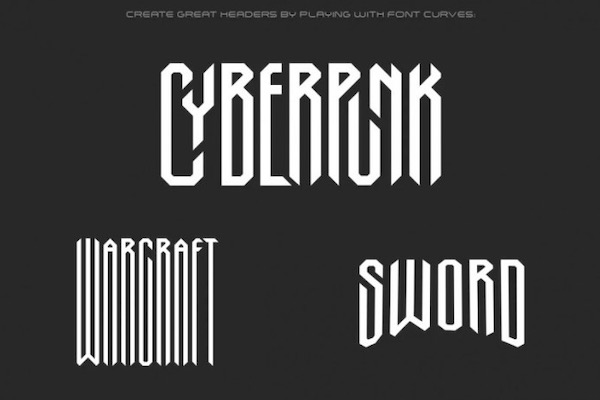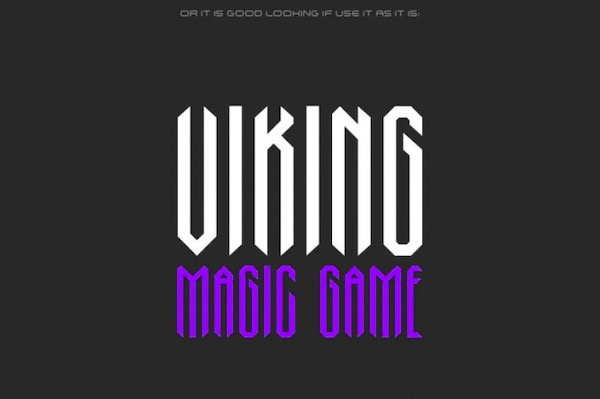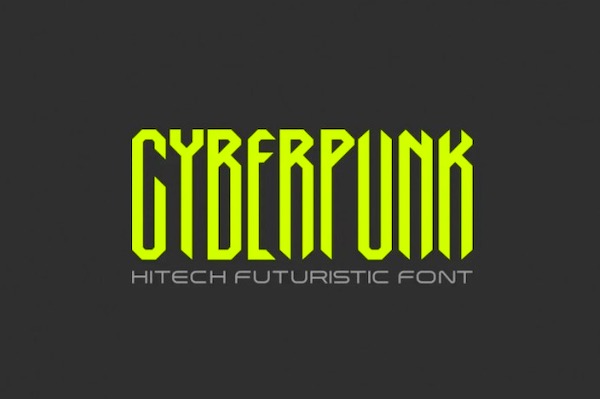
CYBERPUNK Font is a great modern typeface that was created and shared for professional talented designers. Along with hi-tech gothic looks that make your projects more beautiful.
Cyberpunk display Font